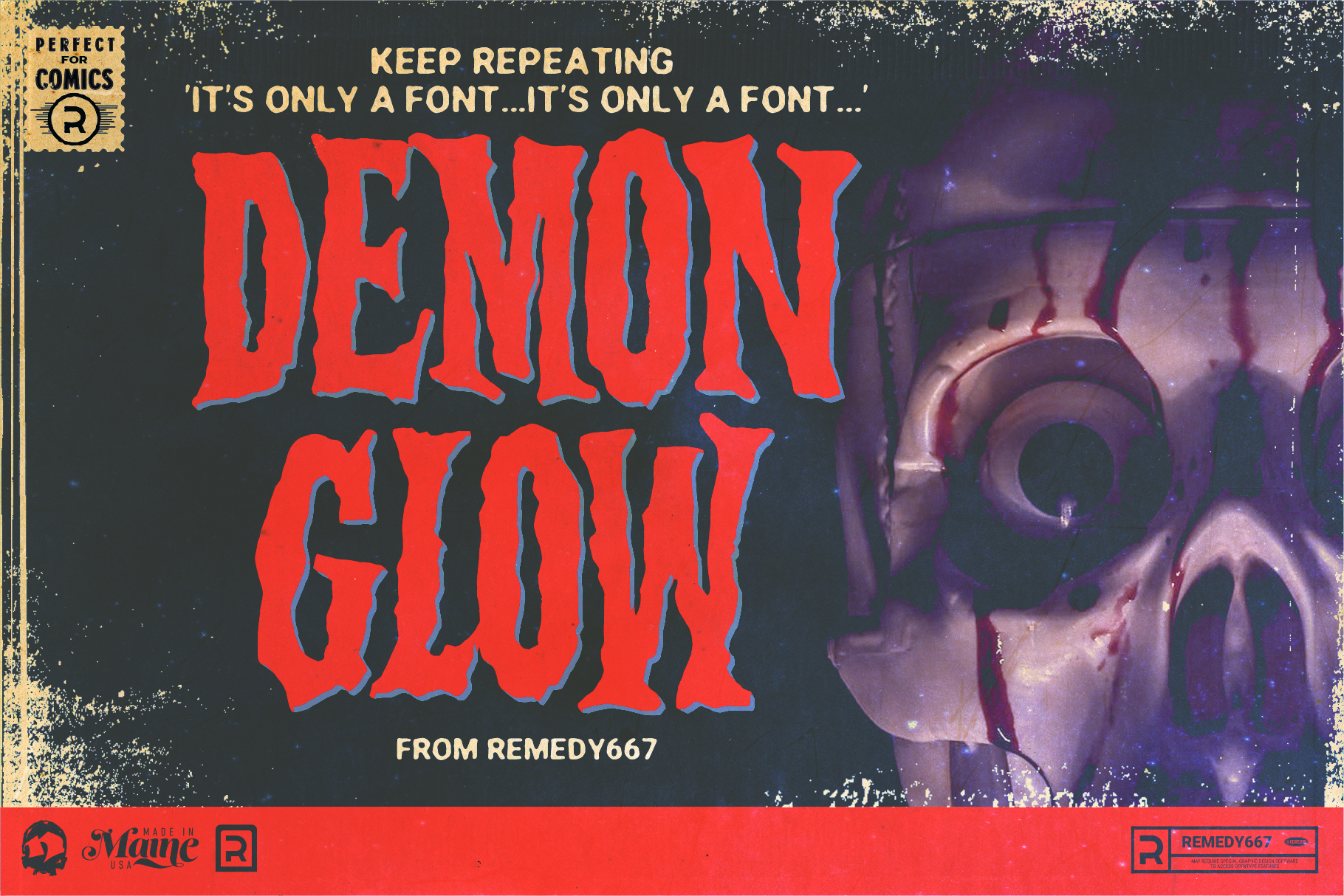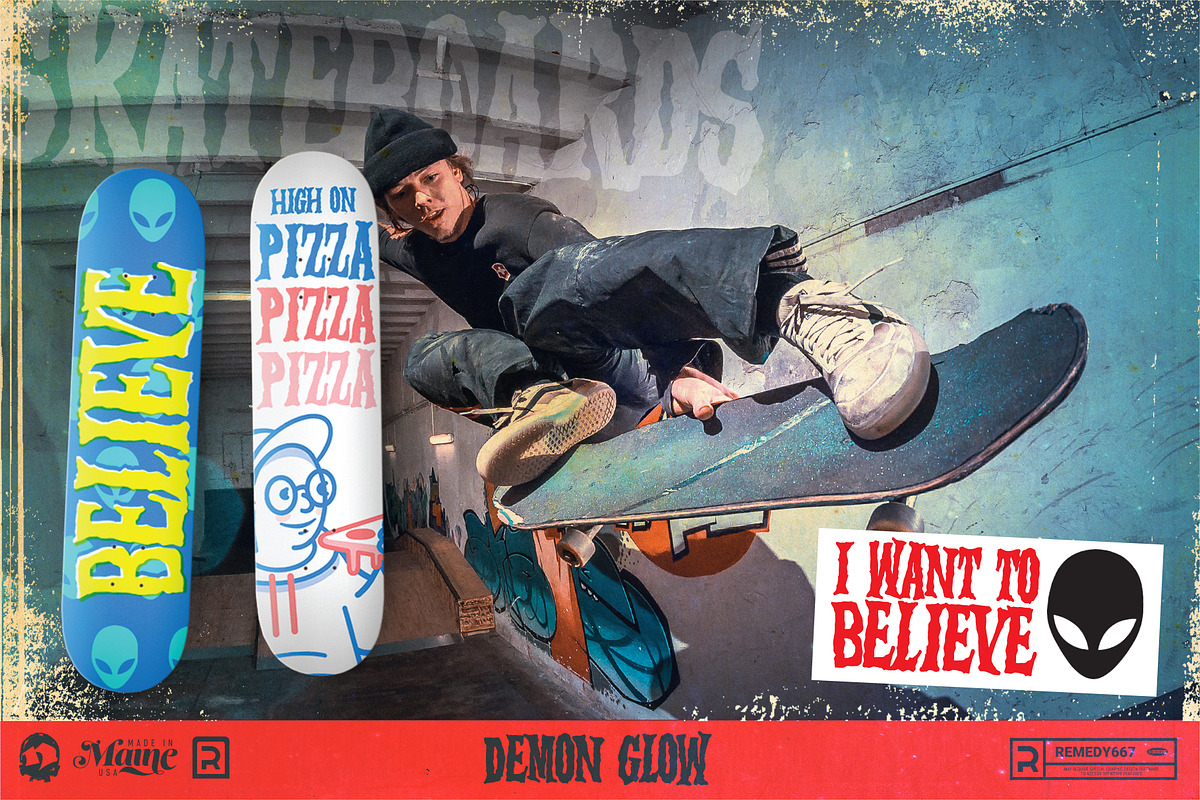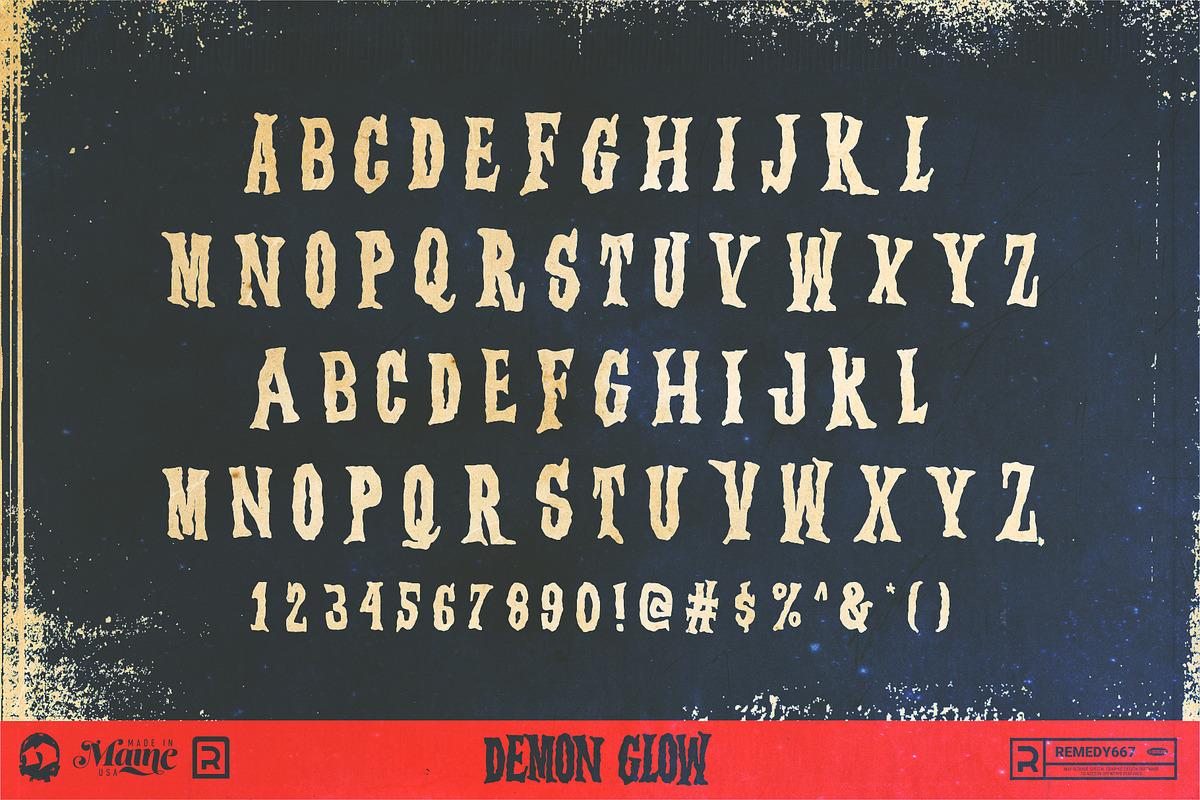
Demon Glow - Horror Font
Demon Glow is familiar like the cover of an old book… a distant memory. Inspired by 1980’s horror novels, Demon Glow is ready for titles, posters, logos, shirts, bags, records and other merchandise… not to mention books and movies. It’s gritty, handmade look gives it a classic feel, and evokes a haunting curiosity that helped sell the books that inspired it. Demon Glow. Just keep repeating, ‘it’s on a font… it’s only a font…’